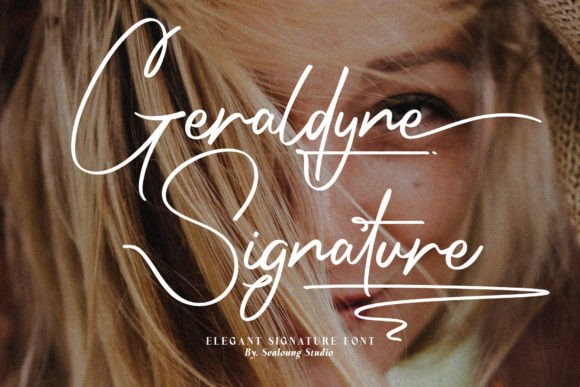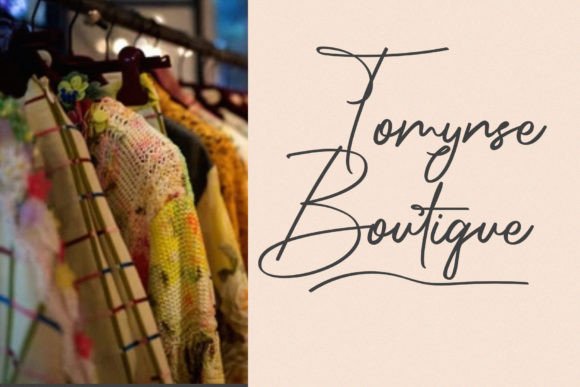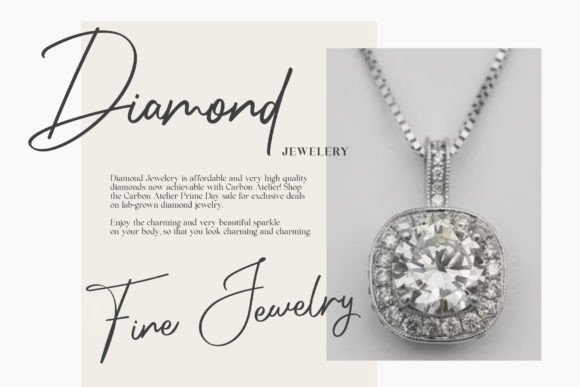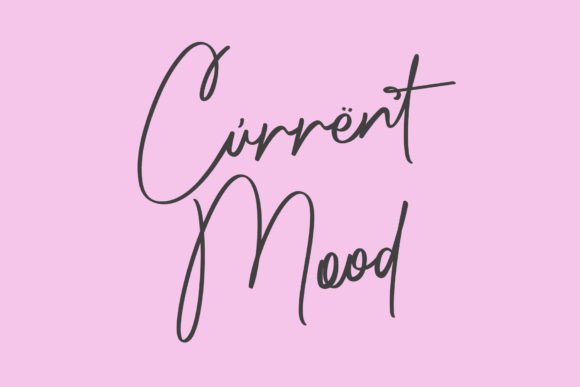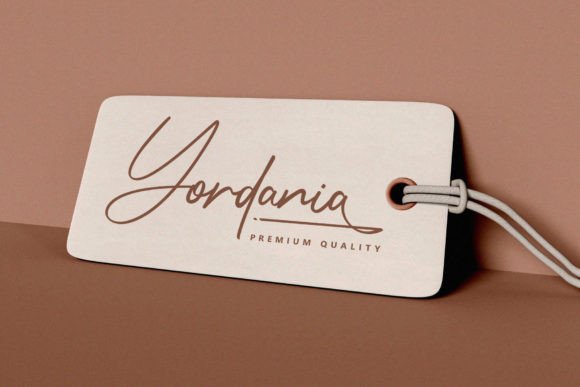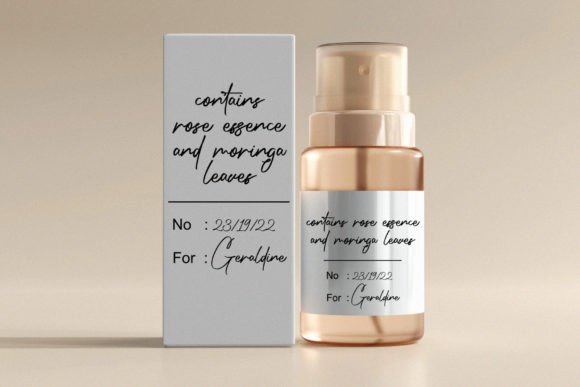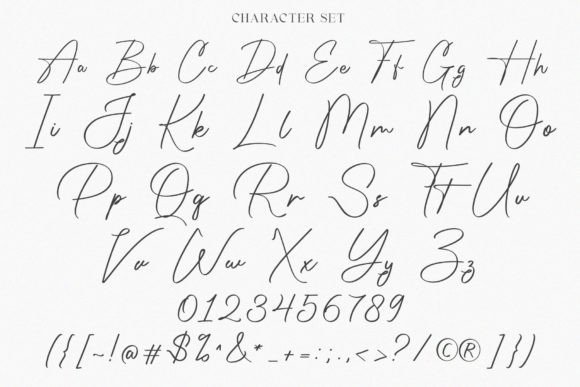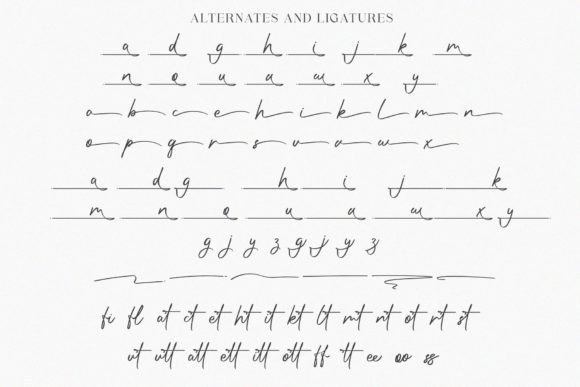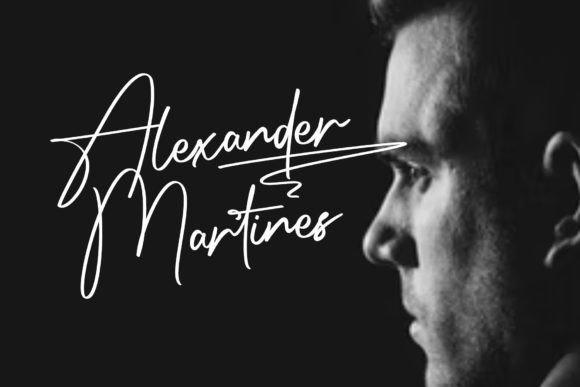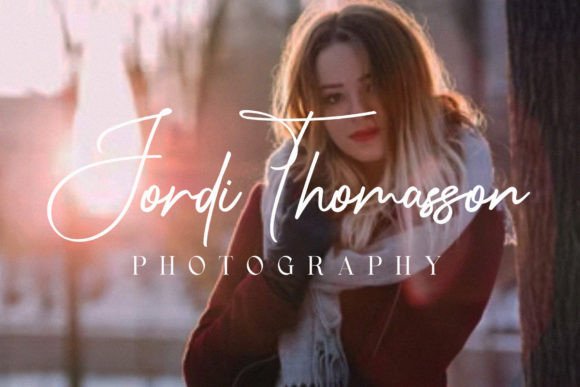
Geraldyne Signature Font
Introducing “Geraldyne Signature,” a stylish and elegant script font crafted to bring a touch of sophistication to your creative projects. This font is designed with flexibility in mind, making it suitable for both web and print applications. Its versatility allows it to shine across a wide range of projects, including stationery, packaging, apparel, wedding stationery, prints, quotes, social media graphics, planners, greeting cards, logos, branding, and more.
The stylish and elegant qualities of Geraldyne Signature make it a standout choice for projects that demand a refined and sophisticated appearance. Whether you’re working on stationery, packaging, or apparel, this font adds a touch of class and elegance, elevating the overall aesthetics of your designs.
For wedding stationery and prints, Geraldyne Signature becomes a defining element that adds a romantic and luxurious touch. The font’s script style enhances the visual appeal, creating wedding invitations, quotes, and prints that are both beautiful and memorable.
In the realm of social media graphics and branding, Geraldyne Signature contributes to a polished and professional look. Its stylish script form makes it suitable for creating logos and branding elements that reflect a high level of craftsmanship and elegance.
The flexibility of Geraldyne Signature ensures that it can adapt to various design contexts, making it a valuable tool for a range of creative projects. Its stylish and elegant vibe brings an authentic and sophisticated energy to your text.
In summary, Geraldyne Signature is more than just a font; it’s a creative tool designed to bring a stylish and elegant script style to your projects. Whether you’re working on stationery, wedding invitations, or branding, let Geraldyne Signature be the font that enhances your creative endeavors with its refined and sophisticated charm.